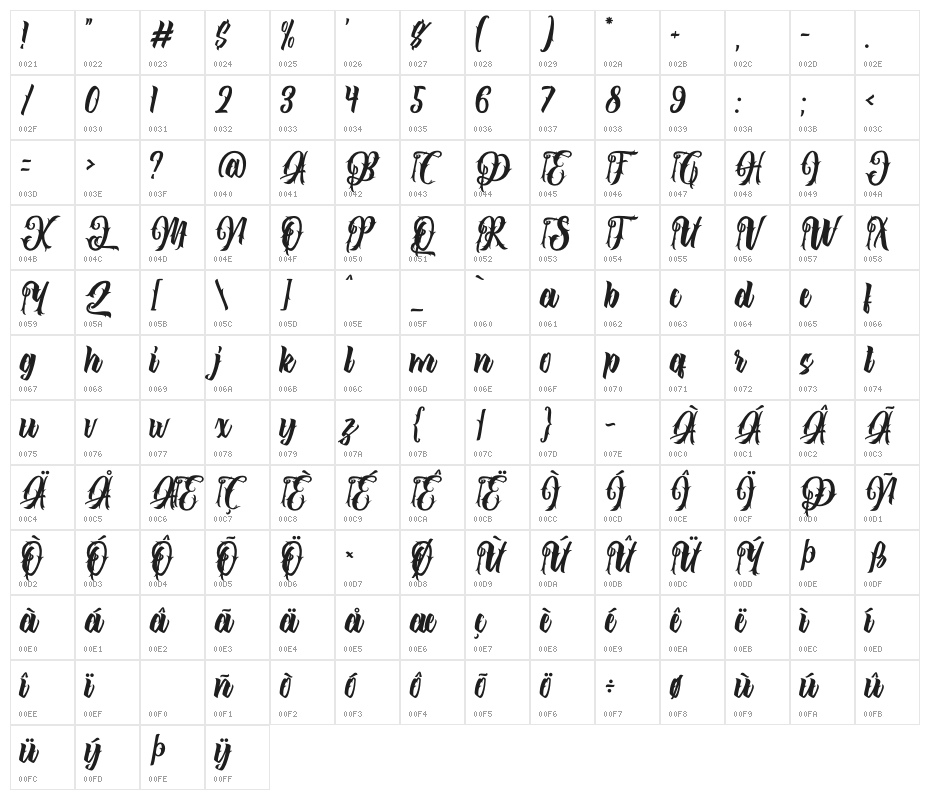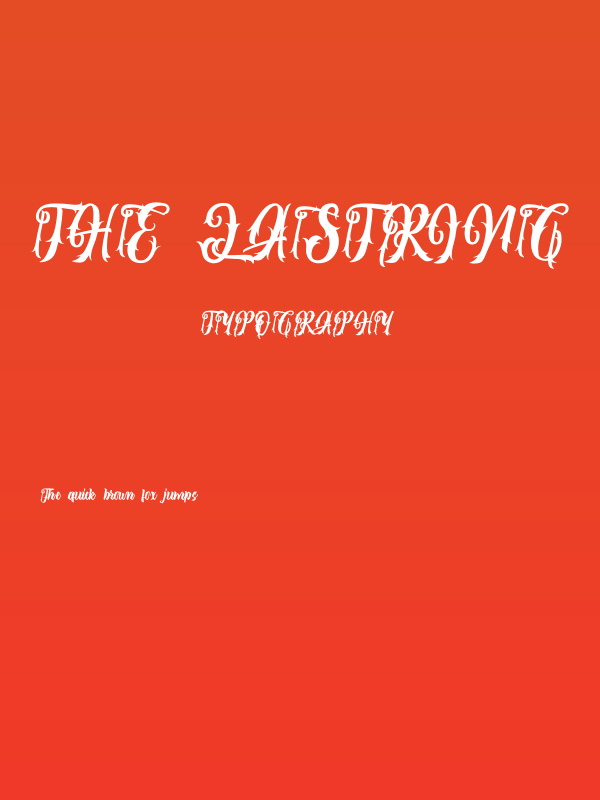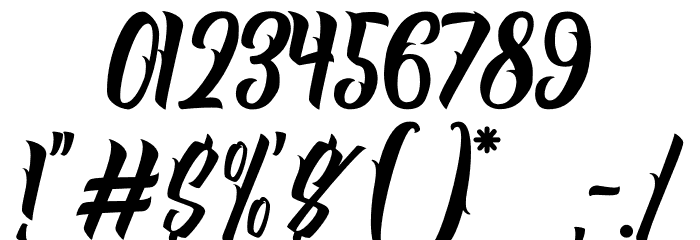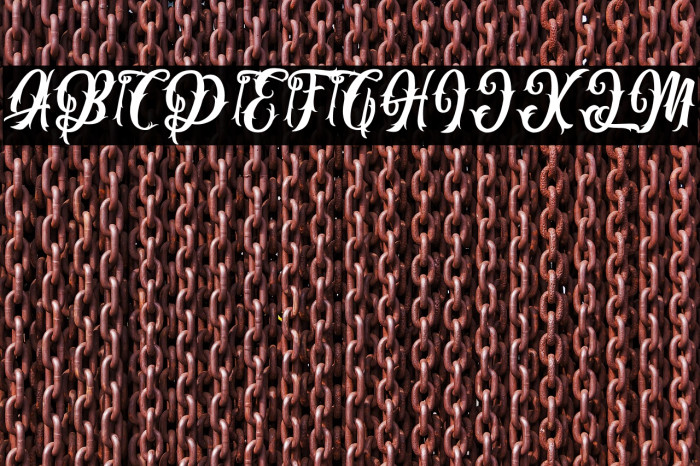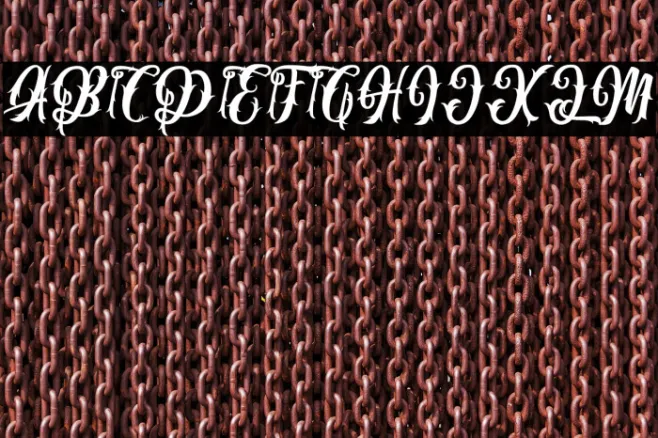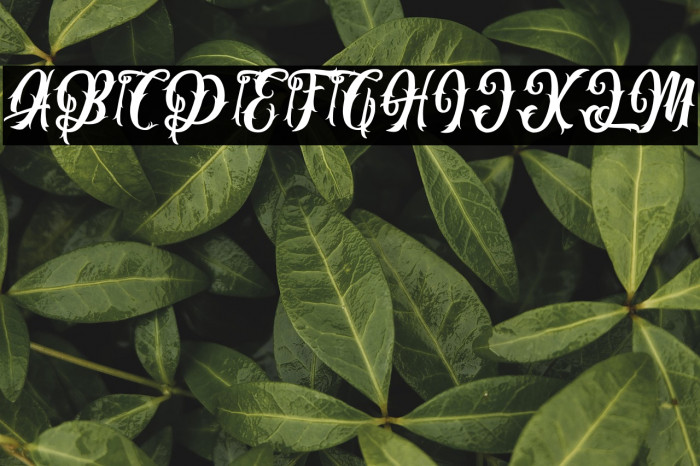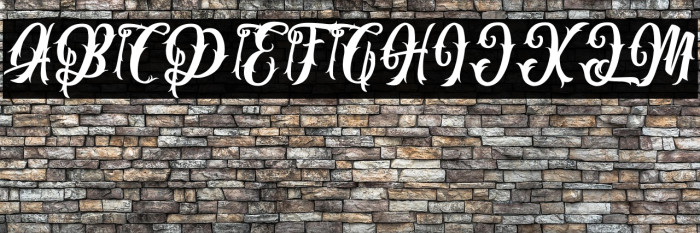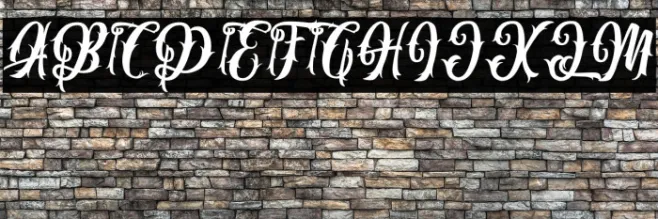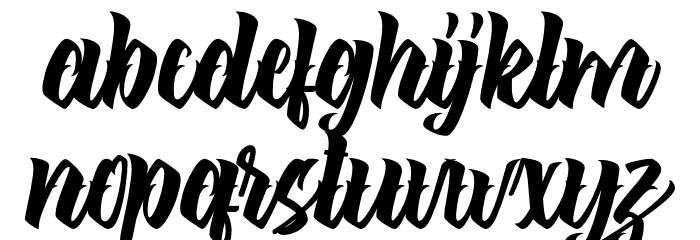
The Lastring Font
The Lastring Description
This font features an intricate and decorative script style, characterized by its flowing and interconnected letterforms. The uppercase letters are particularly ornate, with elaborate swashes and flourishes that give a sense of elegance and sophistication. The lowercase letters maintain a consistent style, with smooth curves and a dynamic rhythm. The numbers and special characters are designed to match the overall aesthetic, ensuring a cohesive look across all elements. This font's bold and expressive nature makes it ideal for creating impactful designs.